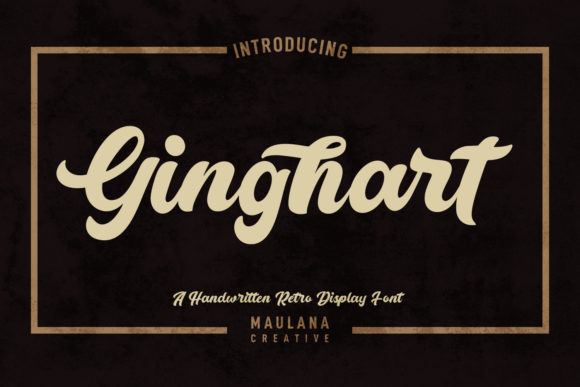
Step into an era of refinement and elegance with Ginghart Script – a mesmerizing font that dances with vintage charm. Its beautifully balanced thin and thick lines, reminiscent of classic calligraphy, ooze sophistication and finesse. Dress your designs in timeless elegance and prepare to turn heads.
Ginghart Script isn't just a font; it's a gateway to a world of captivating visual aesthetics. Unleash your creativity and craft designs that exude a sense of luxury and sophistication. From eye-catching logos that demand attention to stunning invitations that evoke a sense of occasion, Ginghart Script is your trusty companion.
Dive into a world of endless creative possibilities with Ginghart Script's vast repertoire of ligatures and alternatives. Effortlessly add personality and charm to your designs by mixing and matching characters to achieve the perfect look. Let your imagination soar and craft designs that spark curiosity and leave a lasting impression.
Experience the versatility of Ginghart Script as it seamlessly adapts to a myriad of design projects. Its inherent elegance shines in wedding invitations, creating a sense of timeless romance. Utilize its dynamic character to craft logos that exude professionalism and inspire trust. Let Ginghart Script guide you as you create breathtaking social media graphics that capture attention and ignite engagement.
Don't settle for ordinary. Ascend to the realm of design royalty with Ginghart Script, a font that empowers you to weave enchanting tales and leave an indelible mark on your audience. From elegant branding to eye-catching marketing materials, Ginghart Script stands as your ally in creating designs that mesmerize and captivate.